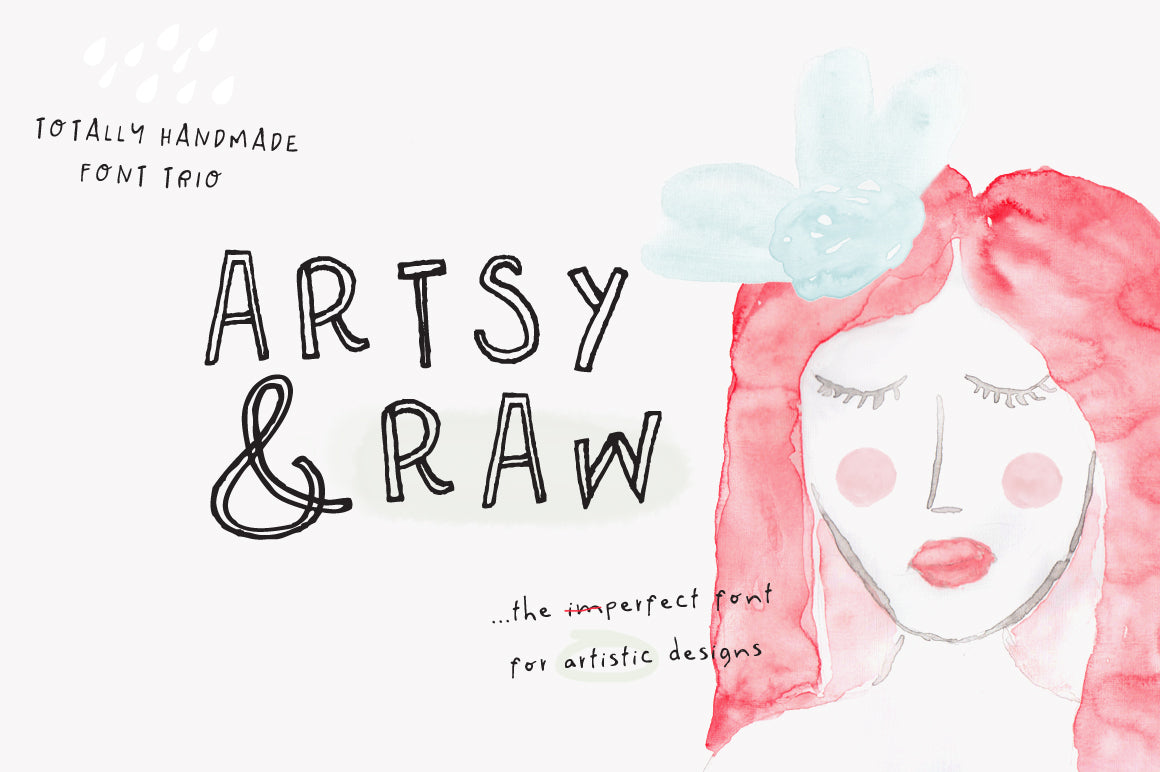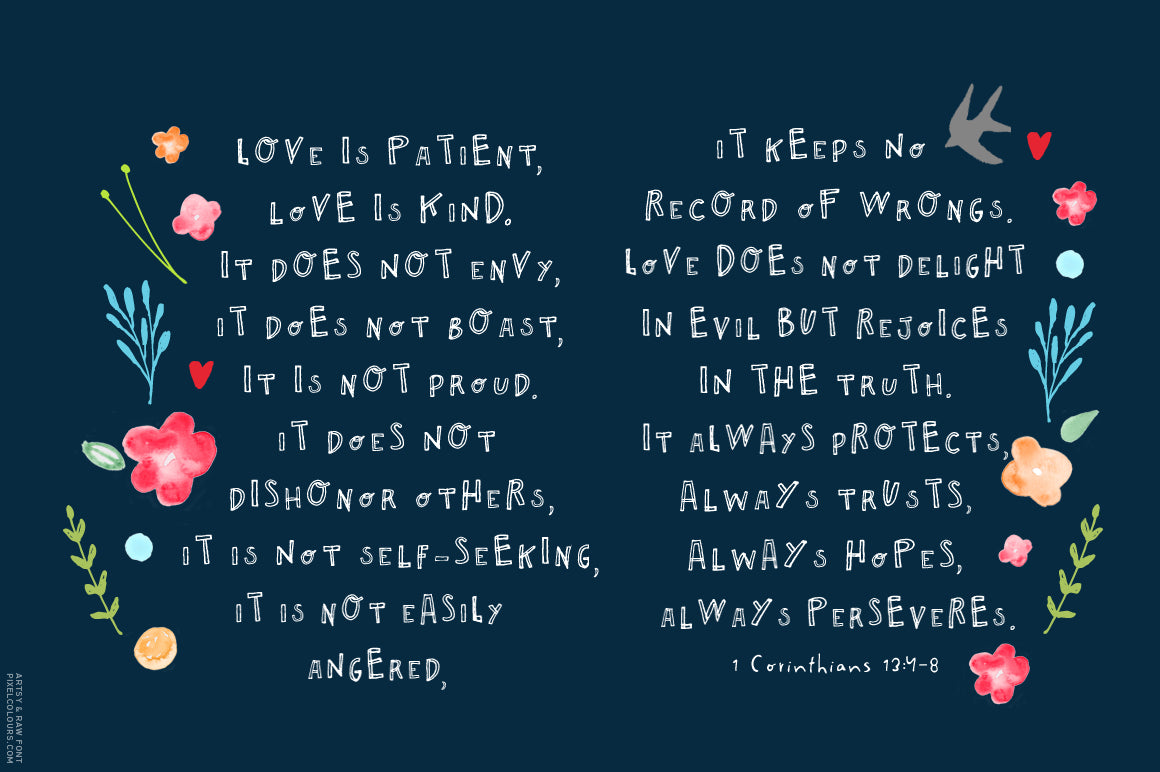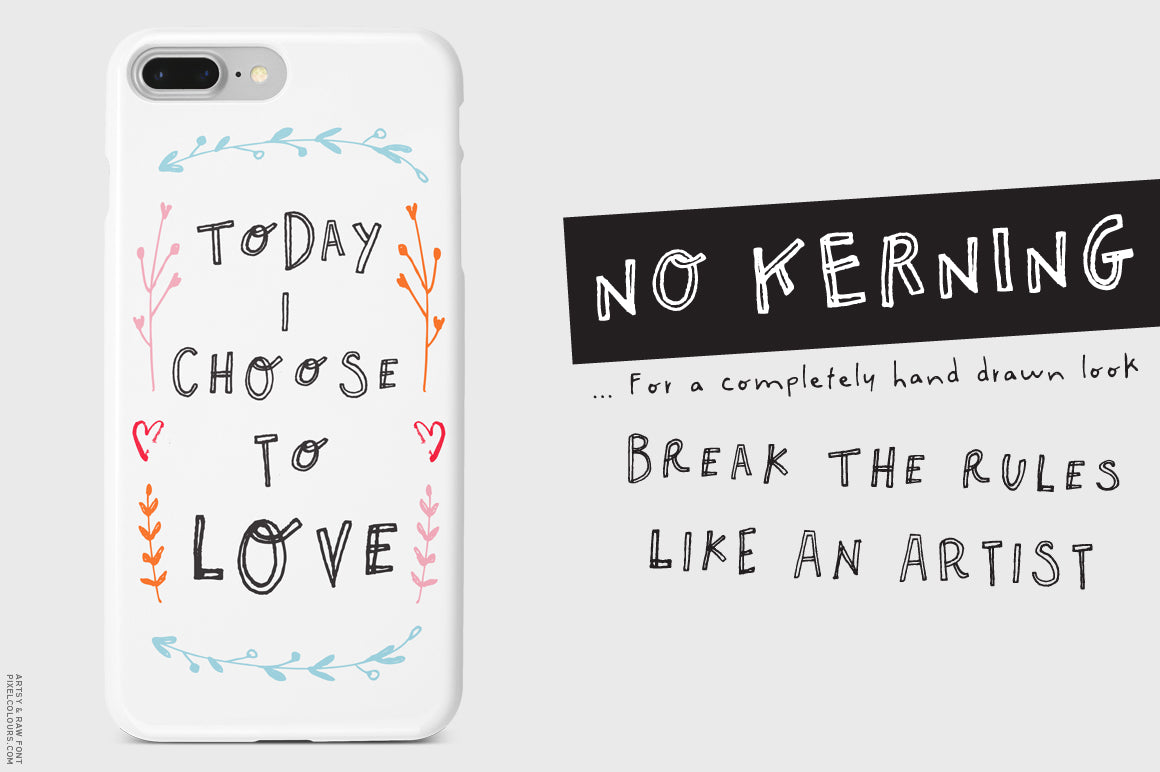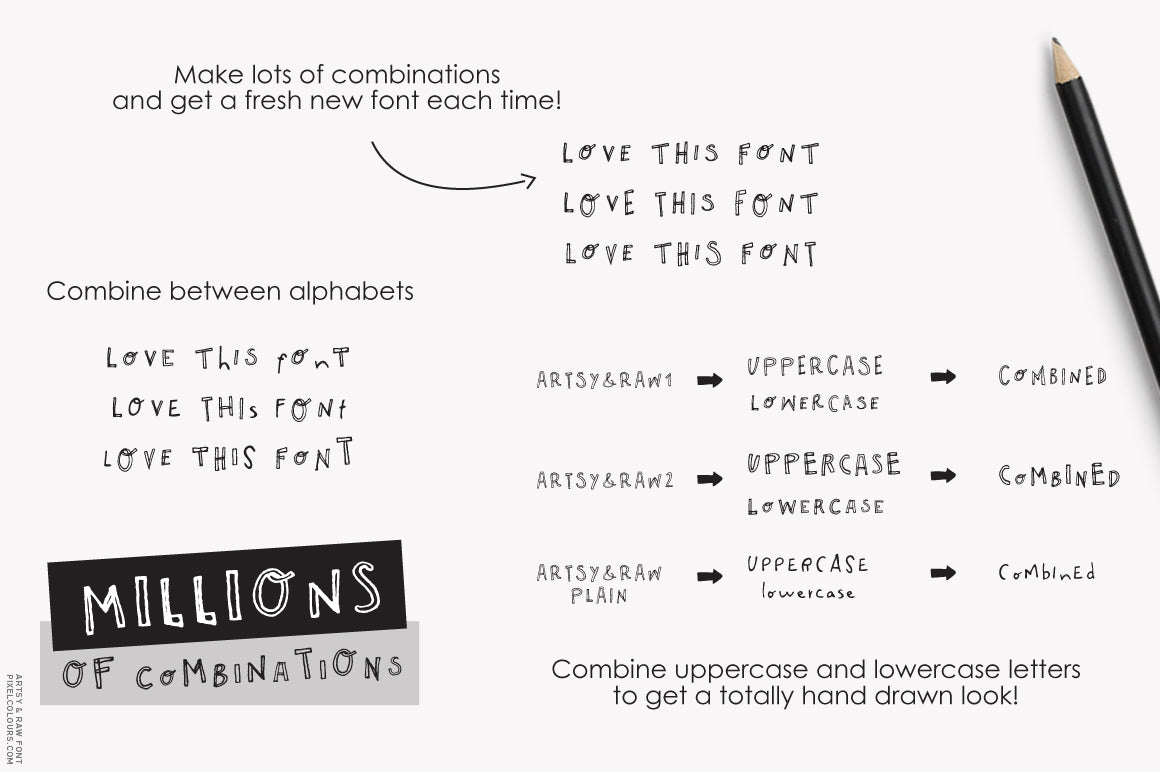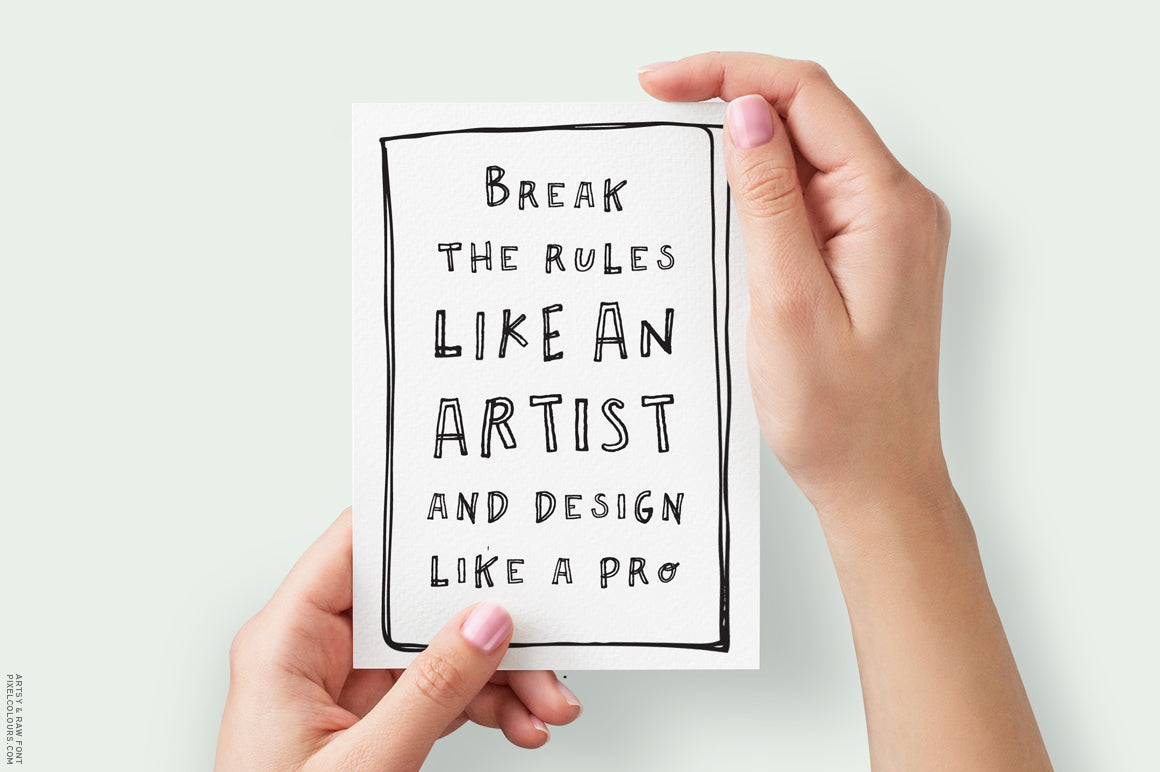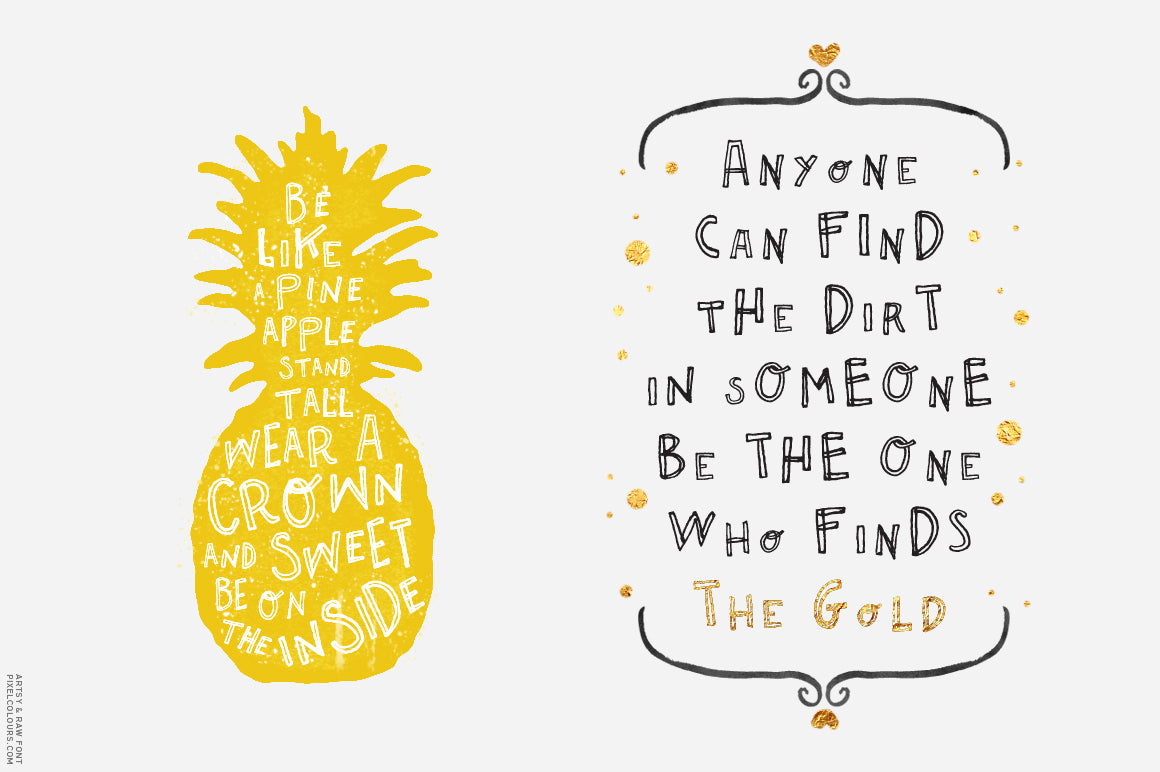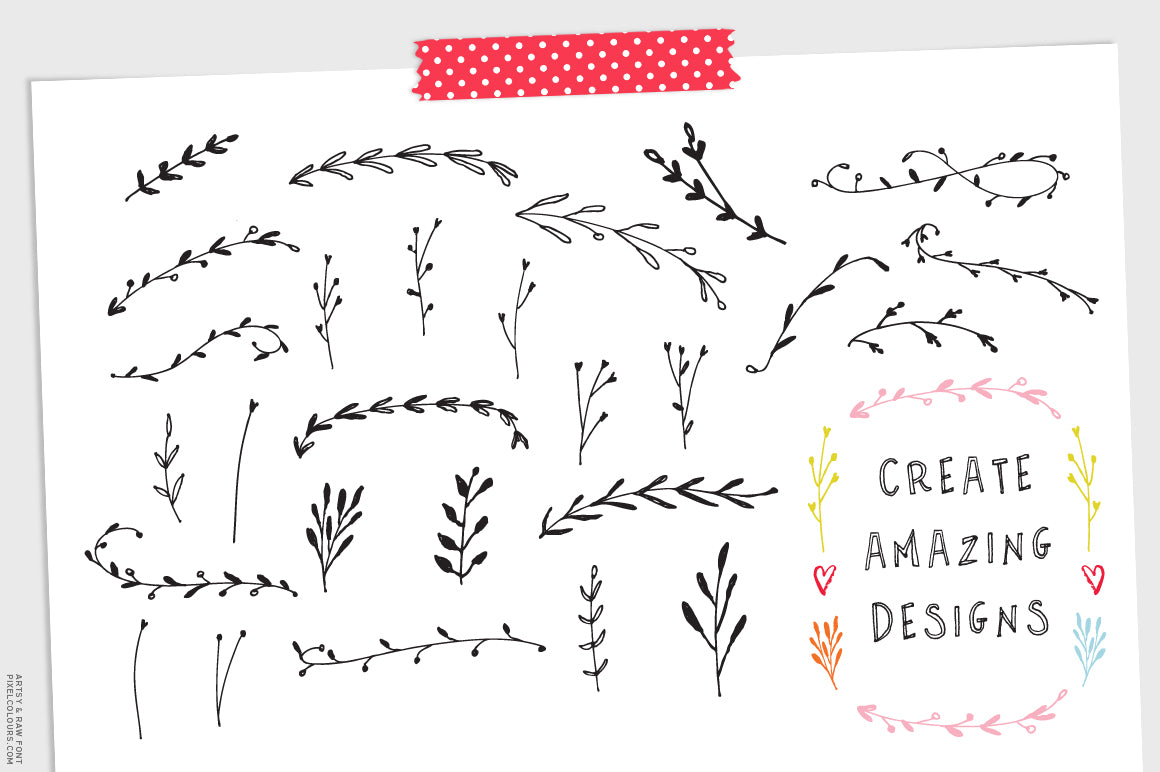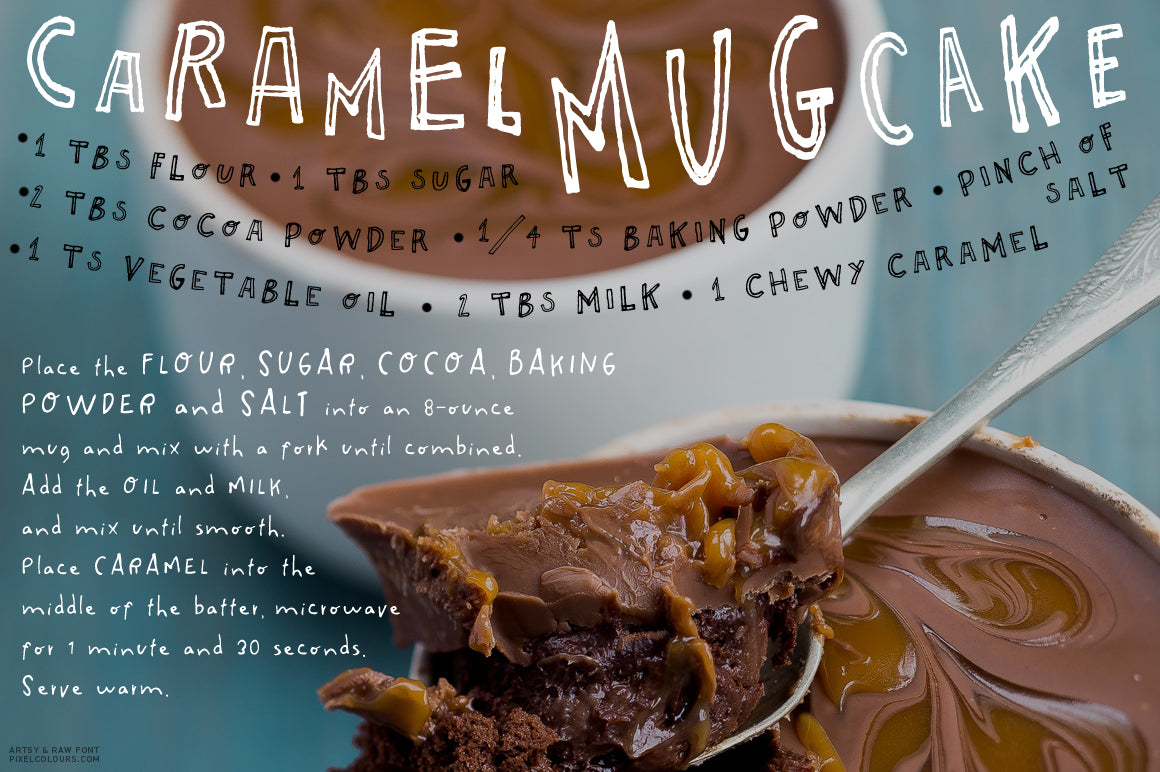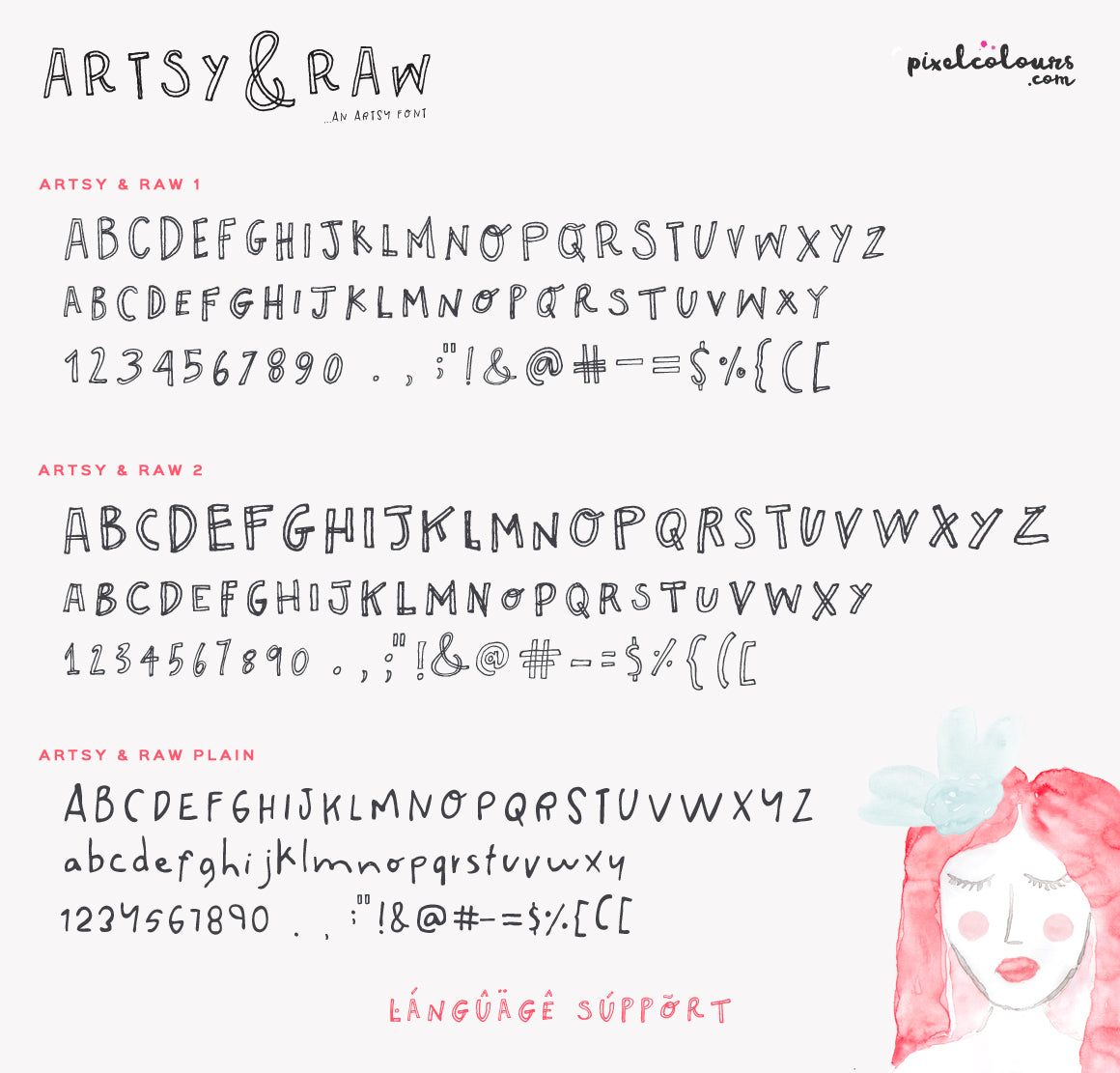
Artsy and Raw Outline Font
Artsy and Raw is a sweet display font family designed to look absolutely hand drawn. It's so imperfect that is perfect for artistic projects. Includes 2 fonts with 2 variations of uppercase characters, so you get a total of 4 different alphabets to combine all! Start creating with a bonus of 150 hand drawn vector ornaments, watercolor flowers and hearts.
- Artsy and Raw 1: outline font with 2 variations of uppercase characters
- Artsy and Raw 2: outline font with 2 variations of uppercase characters
- Artsy and Raw Plain: handwritten font for texts or taglines